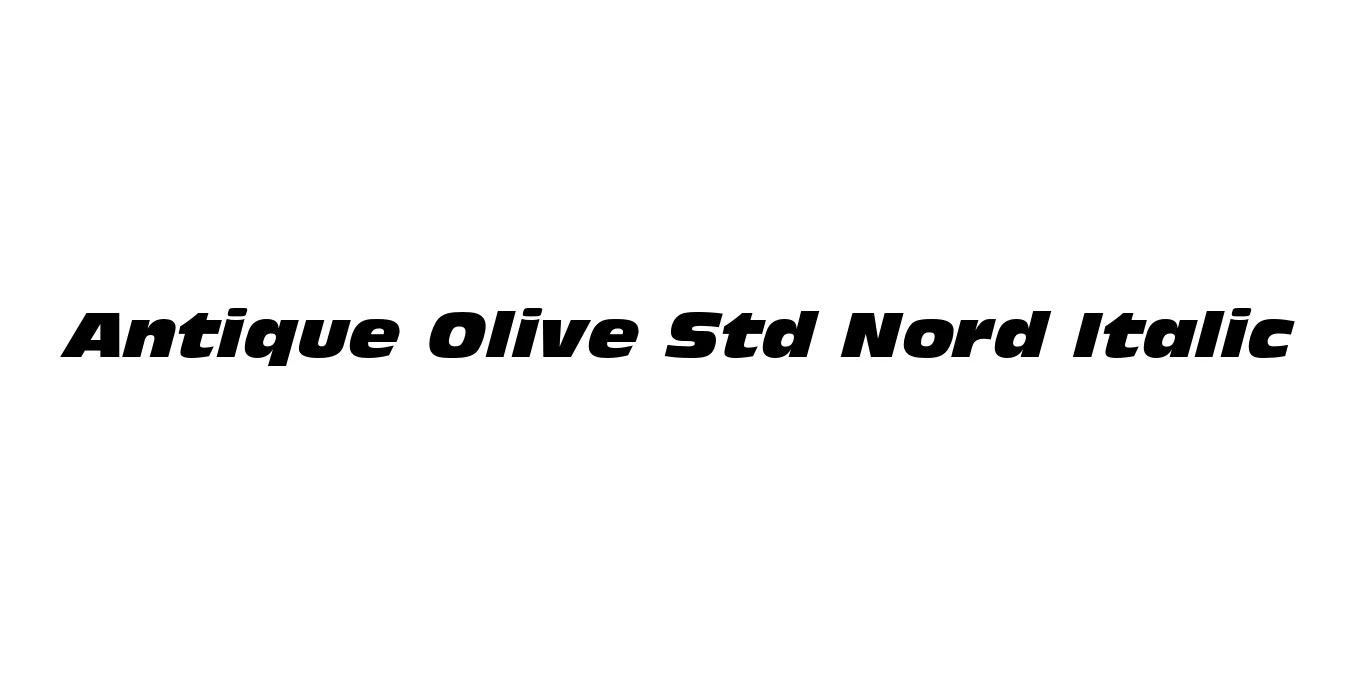
Antique Olive Std Nord Italic
Designed by Roger Excoffon
Antique Olive Std Nord Italic is a monumental sans-serif typeface designed by the renowned French typographer Roger Excoffon in the 1960s for the Fonderie Olive. Unlike many of its contemporaries that followed the strict geometric or neo-grotesque models, Antique Olive is built on humanist principles, featuring an unusually high x-height and distinct, tight apertures. The 'Nord' weight is the most extreme and heavy iteration of the family, designed to provide a massive visual impact that is both sophisticated and authoritative.
The Nord Italic variant brings a sense of refined speed and urgency to this heavy-duty typeface. It became an icon of 20th-century advertising and film titles, often chosen for its ability to remain legible while occupying a significant amount of visual space. Its unique letterforms, such as the curved strokes and the sharp contrast in its terminals, make it a versatile tool for designers aiming to create a vintage mid-century aesthetic or a bold, modern brand identity that stands out from standard sans-serif choices.
Antique Olive Std Nord Italic Best Uses
Exceptional for high-impact print ads and billboards where visual weight is critical.
Perfect for creating powerful, distinctive logos for modern and premium brands.
Ideal for loud, large-scale magazine headlines and cinematic title sequences.
Highly effective for large-format event posters that require maximum visibility.